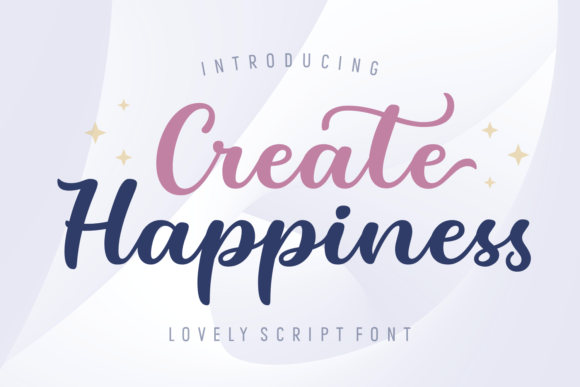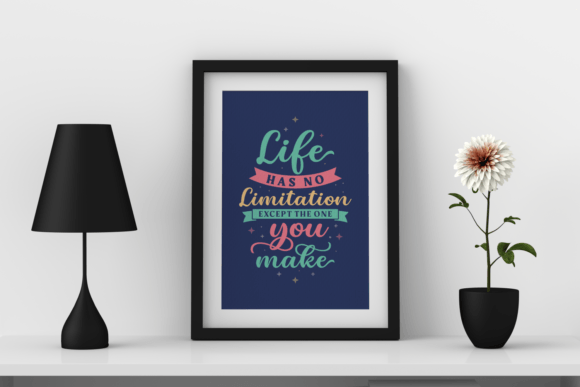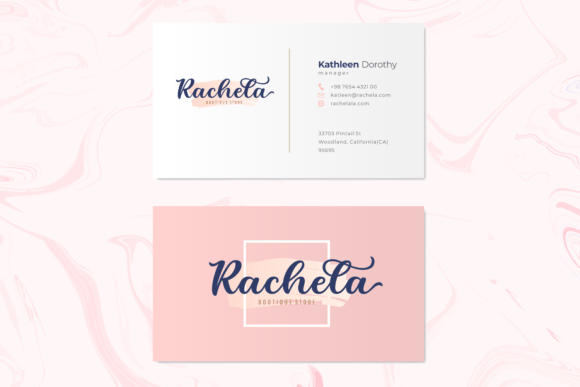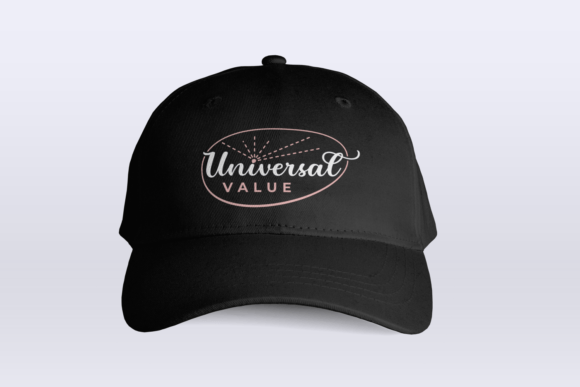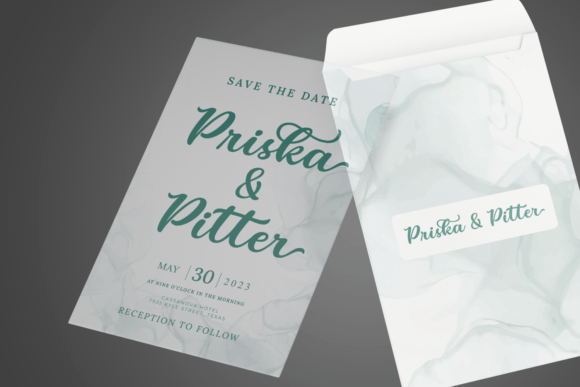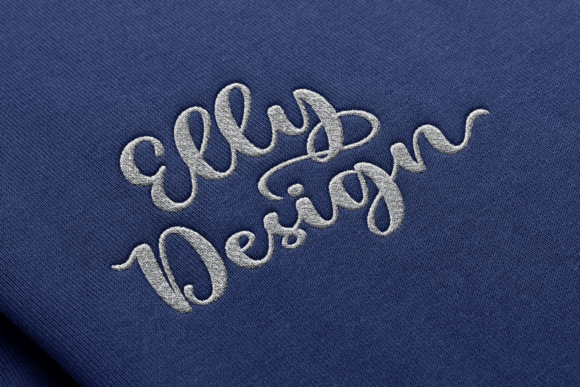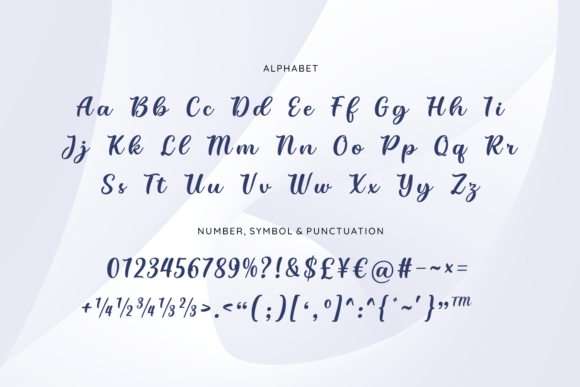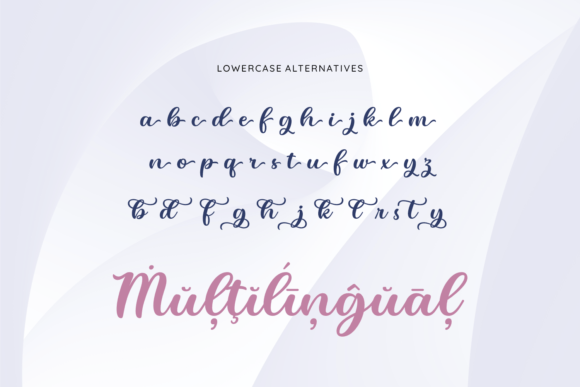
About Create Happiness Font
“Create Happiness” is a beautiful and charming script font that adds a touch of loveliness to your designs. This delightful typeface is crafted to assist you in creating cute and dreamy designs, whether for greeting cards, posters, invitations, or any other project where a whimsical and charming aesthetic is desired.
The charm of “Create Happiness” is evident in its flowing characters and special swirly end lines, adding a unique and playful touch to your designs. This font is designed to bring a sense of joy and positivity to your projects, living up to its name by inspiring happiness in every creative endeavor.
Imagine “Create Happiness” on a greeting card, where its charming script transforms messages into delightful expressions. In posters or invitations, this font becomes a key element in creating an atmosphere of cuteness and dreaminess. The lowercase alternatives with swirly end lines add an extra layer of versatility, allowing you to customize and personalize your designs.
The PUA encoding of “Create Happiness” ensures easy access to all the glyphs and swashes, providing you with the freedom to infuse your projects with additional creative elements. This feature enables you to make your designs truly unique and reflective of your creative vision.
In conclusion, “Create Happiness” is more than just a font; it’s a design tool that brings a sense of charm and joy to your creative projects. Whether you’re working on cute illustrations, dreamy designs, or anything in between, let “Create Happiness” be the script font that adds a touch of whimsy and positivity to your work.